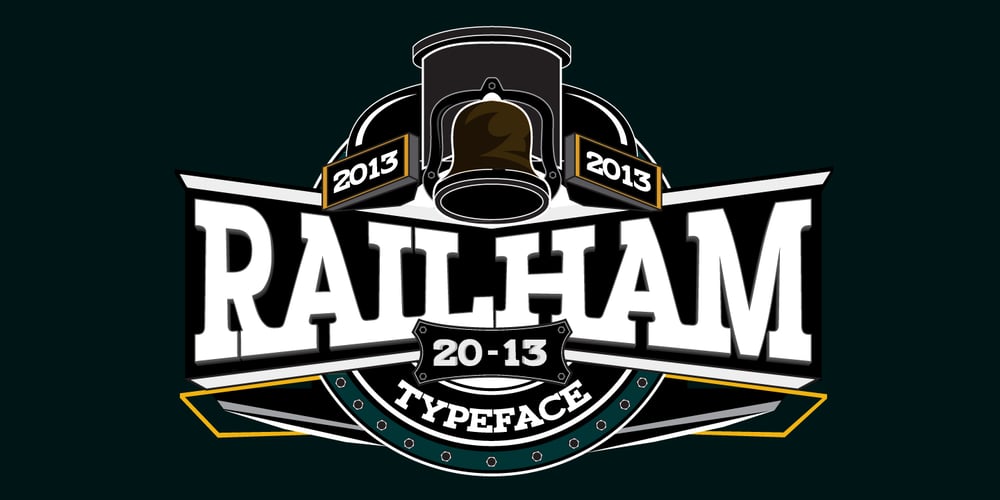
Railham Font Family was designed by Nach Oh! and published by OhType!. Railham contains 6 styles and family package options. RAILHAM is a slab typeface with more than 330 glyphs including uppercase, lowercase, numbers, small caps, accents, punctuation, currencies, etc. Inspired by the tracks of a railroad, with stems that narrow at the top, Railham typeface, like a train looks to the future without forgetting the fundamentals of a long road, detaining in the detail of every element to form a strong, fast and versatile family. Retaking and uniting essential concepts of typography, rounded serifs with especially wide base, forms and counterblocks that complement together, RailHam typeface neatly adapts to any topic, besides being practical and readily legible in small and large formats, joining a select list of modern slab serif fonts.